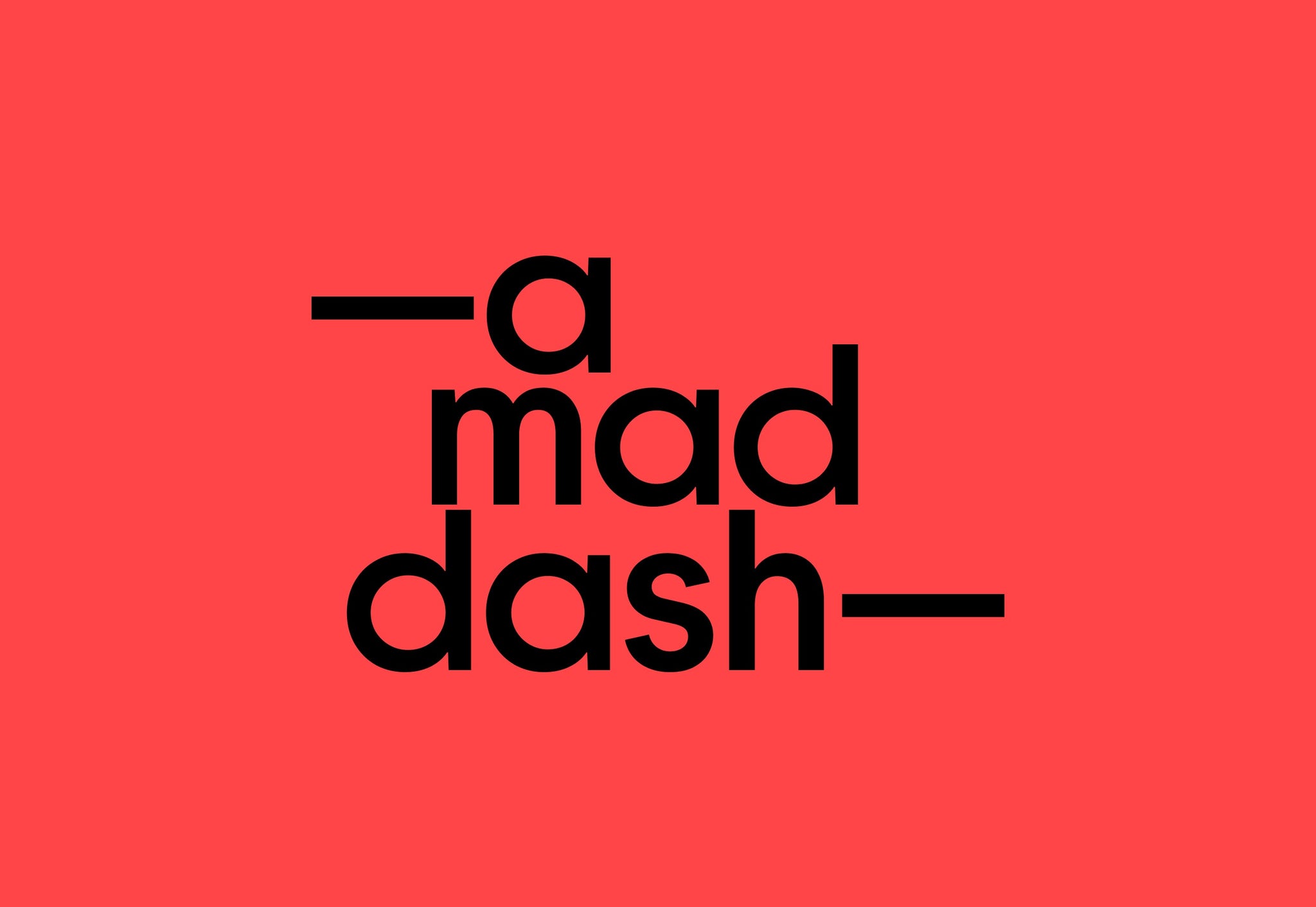
It’s a bit boring banging on about AI atm, and one thing you might’ve noticed is the proliferation of em-dashes we’re now seeing—it’s an epidemic
As writers and designers with a keen interest in letters and grammar, it’s a really interesting shift to see, and one that we’re not 100% against, as we’ll explain. What’s important, however, is that people use them correctly. Afterall, ChatGPT is famously unreliable, regularly and routinely getting things wrong all the time. Take the power away from machine and make sure you know how to use them, and typeset with them, yourself!
Em-dashes (—) can tell you a lot. For one, they can tell you that the guy you’ve been seeing has used ChatGPT to write his break up message, because they’ve never once used an em-dash before. That is, sadly, based on a true story.
They’re becoming more and more prevalent due to the wide-spread use of ChatGPT which, as a writer, isn’t necessarily a bad thing, as the reason ChatGPT uses the latter is because, technically, it’s completely correct. The problem is that over the past few decades, and with people generally writing less, our collective grammar has somewhat side-lined the plethora of different dashes available to us, which is a shame, because they’re great things, and different dashes have different distinct uses.
The Hyphen (-)
The hyphen, often incorrectly used in place of all other dashes, is the joiner. It connects words that want to be one, for example, well-known, two-year plan, or type-led. It helps avoid ambiguity. A hyphen lets you know that a small-business owner is the owner of a small business, and not a person who owns a business and is small. Typographically speaking, a hyphen must never be used with space either side of it.
The Em-dash (—)
Em-dashes are used to create a break in a sentence or to connect two parts of a sentence—in doing so, this tonally feels stronger than a comma, and creates a flow rather than ending one sentence and starting another. There is no space either side of an em dash. It directly connects to the words it falls between.
The En-Dash (–)
The en-dash is specifically used for spans between factors, indicating ranges and relationships, such as time, date or location. For example, 1998–2003, pages 12–18, the London–Edinburgh train. In these cases, when an en dash is used to connect to things in a range of values, then no space is needed either side.
Stylistically, however, it’s often used in place of an em-dash (“They are children – they wouldn’t hurt a fly”). If this is how an en-dash is used, then a space must be used either side of the mark. Ultimately, a lot of this comes down to one’s writing style and can be quite aesthetically driven. For instance, some editorial platforms, like It’s Nice That, opt for en-dashes rather than em-dashes, as it’s more pleasing to the eye – it certainly feels less aggressive.
The comma (Bonus)
Whilst we’re on the subject of grammar, let’s quickly explain the Oxford comma too. The Oxford comma is the comma before “and” in a list. “Apples, pears, and oranges.” Again, its use comes down to taste and style, for some writing guidelines it’s mandatory, for others, optional. Personally, I feel it makes sense, because it creates a better pacing when reading – or announcing – lists. Similarly, it can make things more clear. If you were to read these two sentences, one would be more surprising than the next…